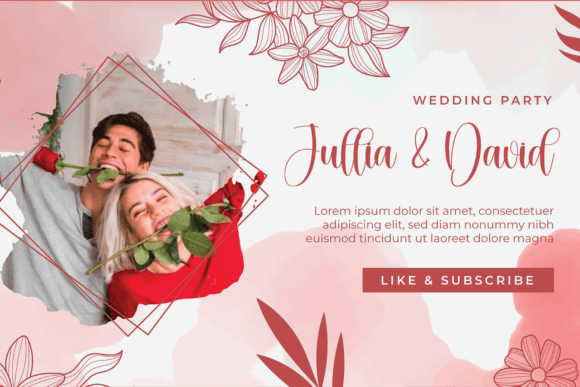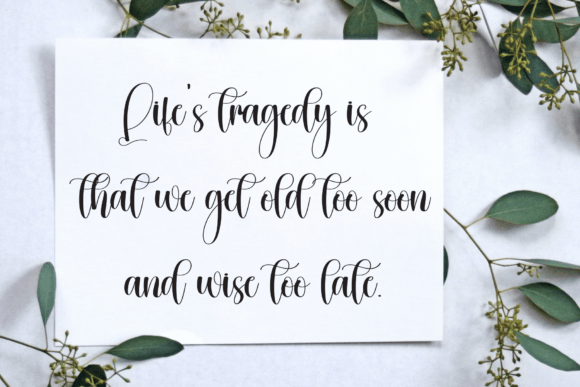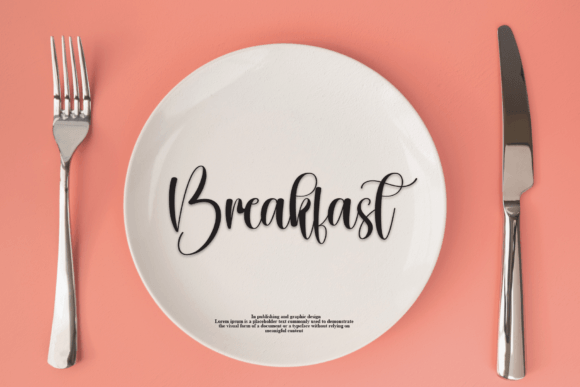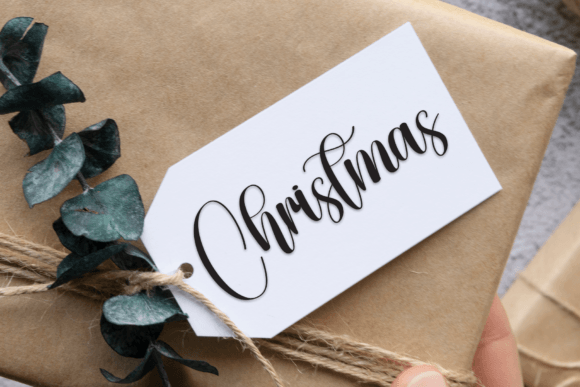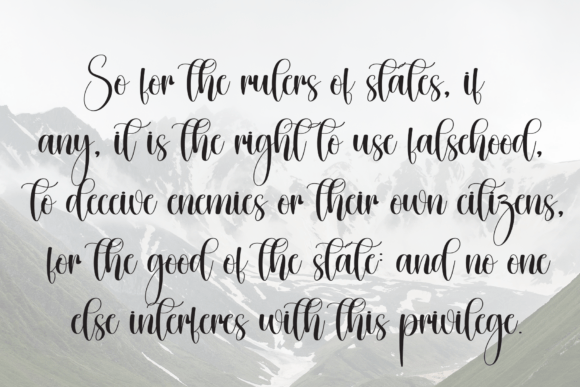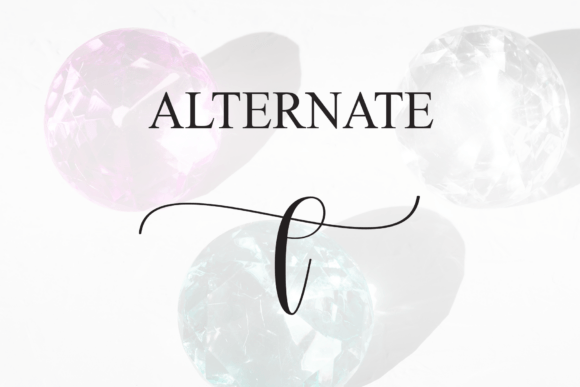
Introducing Gemstone Font: Elevate Your Designs with Timeless Elegance
Are you a designer or crafter looking for a font that exudes sophistication and charm? Look no further than Gemstone Font, a lovely and timeless handwritten font that’s perfect for creating eye-catching logos, branding, and quotes. With its unique and beautiful touch, Gemstone Font is sure to make your design come alive!
The Beauty of Gemstone Font
Gemstone Font is a meticulously crafted handwritten font that boasts a distinctive and elegant style. Every letter has been carefully designed to showcase a unique and beautiful touch, making it perfect for designs that require a personal and sophisticated feel. Whether you’re creating a logo, branding materials, or quotes, Gemstone Font is the ideal choice for adding a touch of timeless elegance to your work.
Gemstone Font is a versatile font that’s suitable for a wide range of design applications. Whether you’re a professional designer or a crafter looking to add a personal touch to your projects, Gemstone Font is the perfect choice. Its elegant and sophisticated style makes it ideal for:
- Creating eye-catching logos and branding materials that make a lasting impression
- Designing beautiful quotes and typography that showcase your creativity
- Adding a personal touch to your craft projects, such as handmade cards, invitations, and gift tags
What Sets Gemstone Font Apart
So, what makes Gemstone Font stand out from other fonts? Here are just a few reasons why Gemstone Font is a cut above the rest:
- Unique and Beautiful Touch: Every letter in Gemstone Font has been carefully designed to showcase a unique and beautiful touch, making it perfect for designs that require a personal and sophisticated feel.
- Timeless Elegance: Gemstone Font boasts a timeless elegance that’s perfect for designs that require a classic and sophisticated style.
- Versatility: Gemstone Font is a versatile font that’s suitable for a wide range of design applications, from logos and branding to quotes and typography.
How to Use Gemstone Font
Using Gemstone Font is easy! Here are just a few tips to get you started:
- Pair it with Other Fonts: Gemstone Font pairs perfectly with other fonts to create a unique and visually appealing design. Try pairing it with a bold font for a striking contrast.
- Experiment with Colors: Gemstone Font looks stunning in a variety of colors. Experiment with different colors to find the perfect shade that matches your design.
- Use it for Quotes and Typography: Gemstone Font is perfect for creating beautiful quotes and typography. Try using it to add a personal touch to your designs.
In conclusion, Gemstone Font is a lovely and timeless handwritten font that’s perfect for designers and crafters looking to add a touch of elegance and sophistication to their designs. With its unique and beautiful touch, Gemstone Font is sure to make your design come alive! So why wait? Download Gemstone Font today and start creating stunning designs that showcase your creativity and style.
Key Features of Gemstone Font
- Lovely and timeless handwritten font
- Unique and beautiful touch
- Perfect for logos, branding, and quotes
- Suitable for a wide range of design applications
- Timeless elegance and sophistication
Whether you’re a professional designer or a crafter looking to add a personal touch to your projects, Gemstone Font is the perfect choice. So why wait? Download Gemstone Font today and start creating stunning designs that showcase your creativity and style!